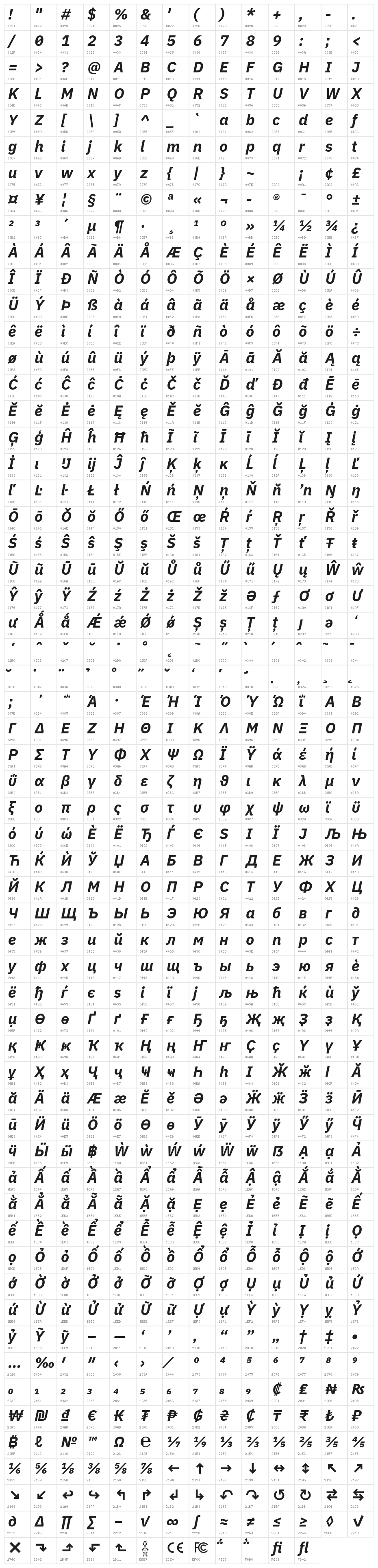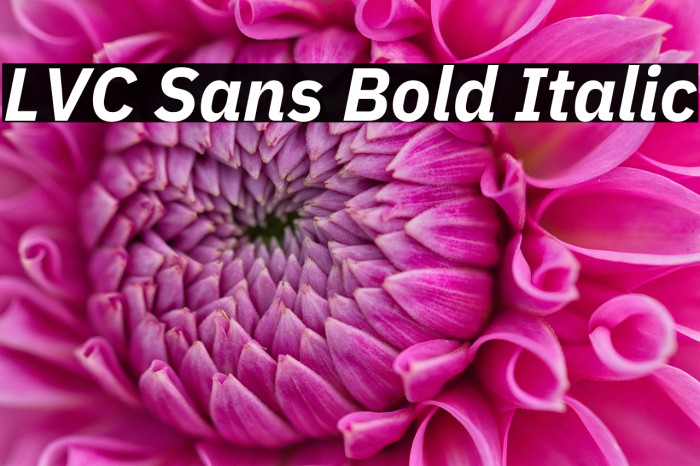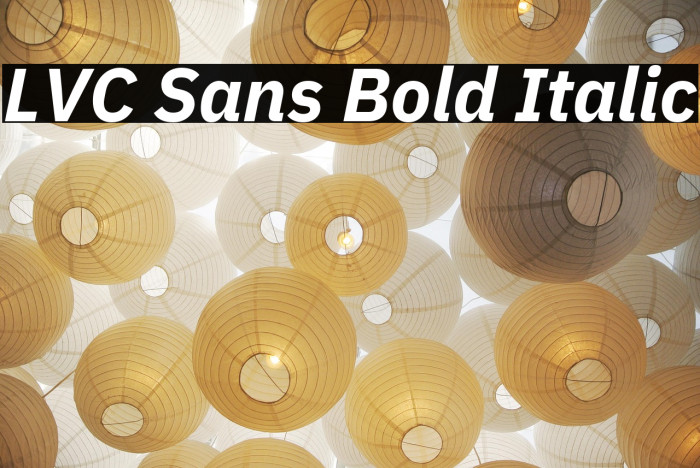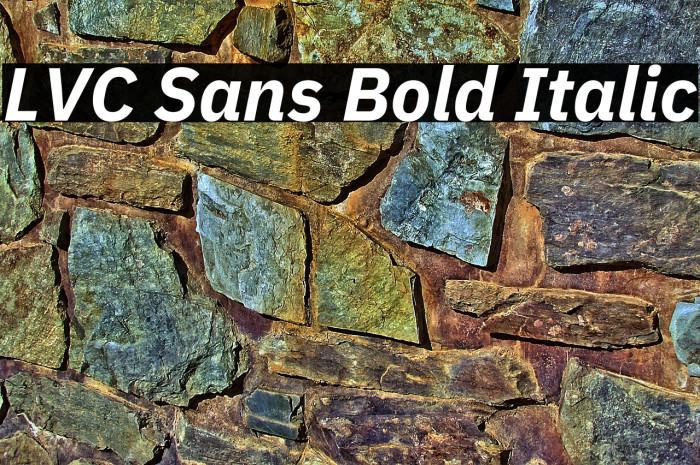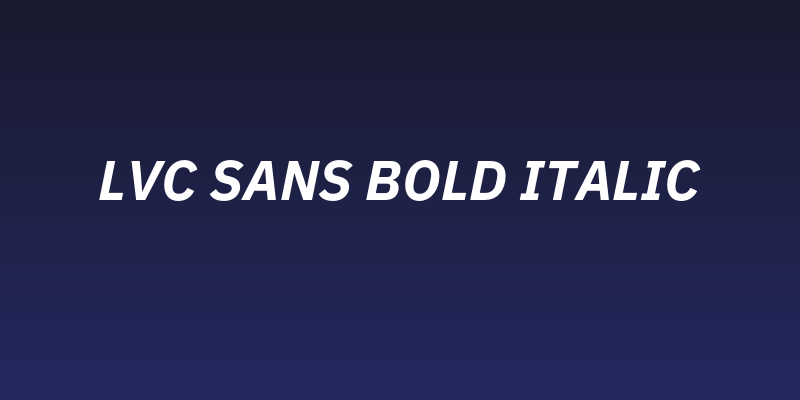
LVC Sans Bold Italic Font
LVC Sans Bold Italic Description
This font features a bold and italicized style, offering a strong and dynamic presence. The sans-serif design ensures a clean and modern look, with smooth curves and consistent line weights. The characters are slightly slanted, enhancing the italic effect while maintaining readability. The numerals and special characters are well-integrated, matching the overall aesthetic. This font is versatile, suitable for various design needs where a bold statement is required.
| Use Case | Headlines, Logos, Advertising |
| Proposed Projects | Ideal for branding, advertising, headlines, and digital media where a strong, modern impression is needed. |